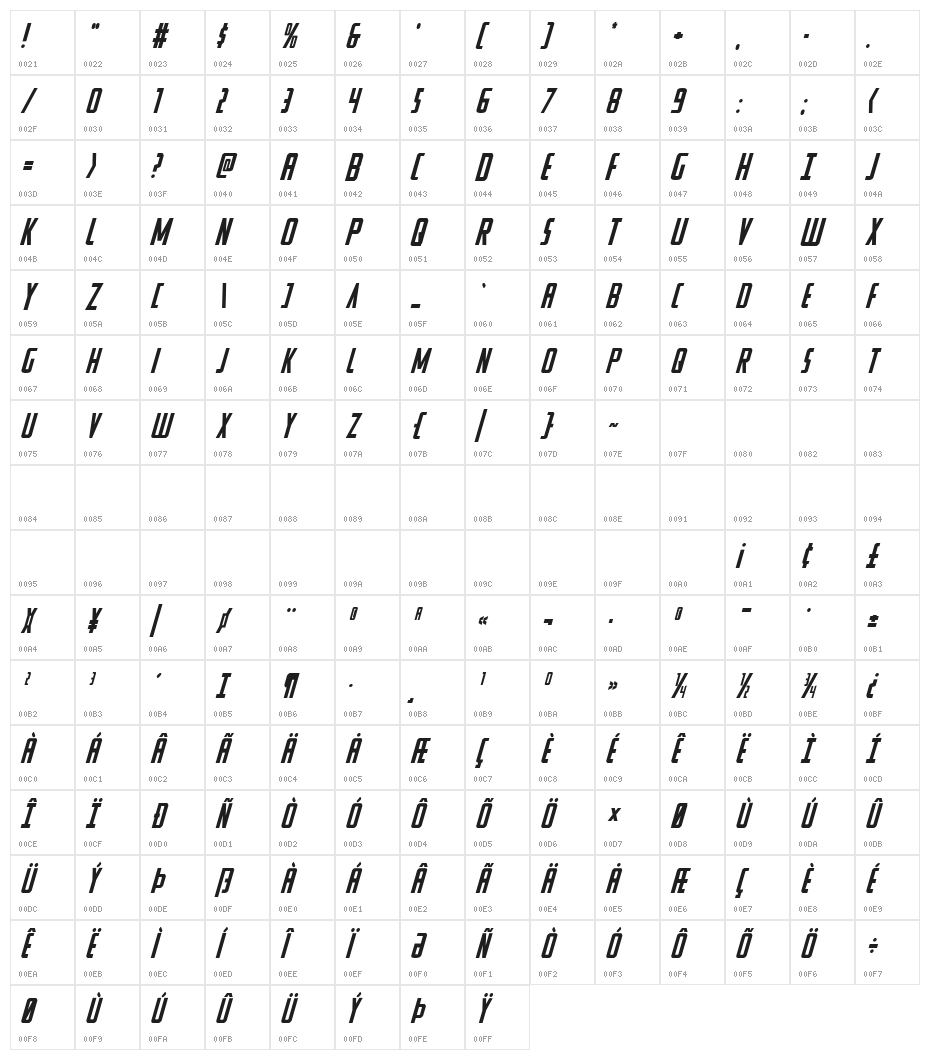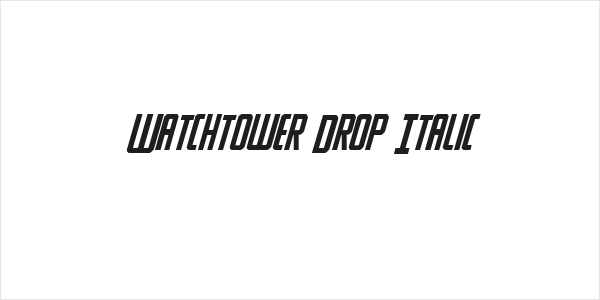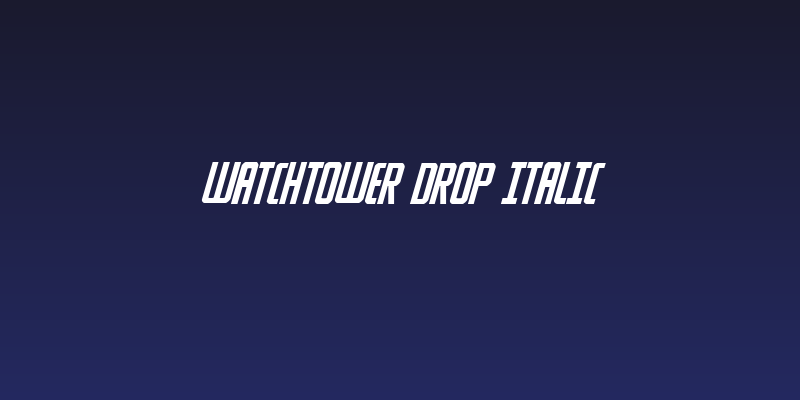
Watchtower Drop Italic Font
Watchtower Drop Italic Description
This font features a bold, italicized style with a strong, angular design. The characters are elongated and slanted, giving a dynamic and energetic appearance. The uppercase letters are prominent and assertive, while the lowercase letters maintain a consistent slant, enhancing the font's cohesive look. The numbers and special characters follow the same angular and italicized design, ensuring uniformity across all glyphs. The font's overall aesthetic is modern and impactful, making it suitable for attention-grabbing headlines and designs.
| Proposed Projects | Ideal for sports branding, dynamic posters, modern advertisements, and bold headlines. |